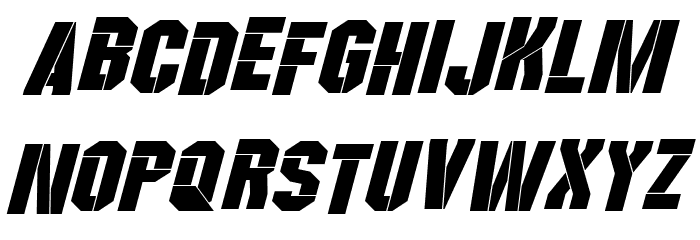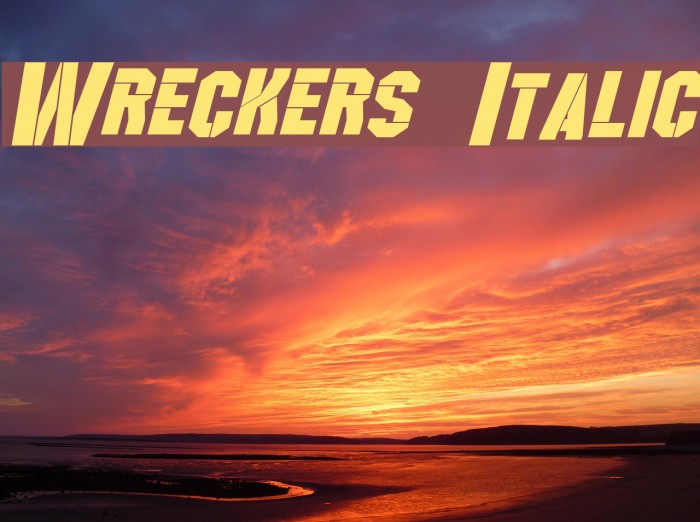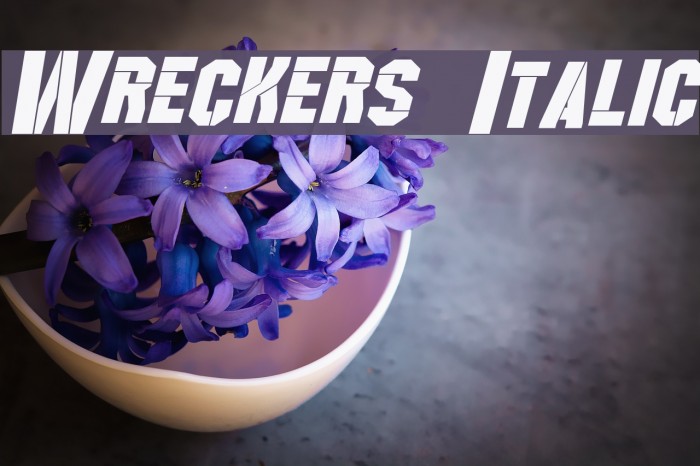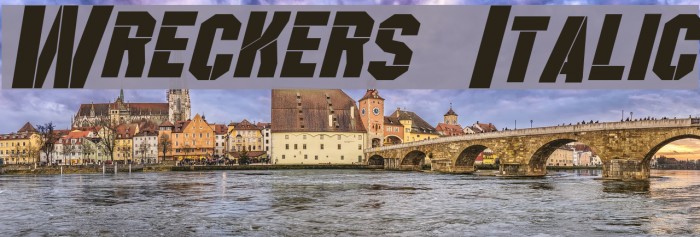
Wreckers Italic Font
This font features a bold, angular design with a distinct italic slant, giving it a dynamic and aggressive appearance. The characters are constructed with sharp, geometric shapes that convey a sense of strength and movement. The uppercase and lowercase letters maintain a consistent style, with the lowercase slightly smaller but equally bold. Numbers and special characters follow the same design principles, ensuring uniformity across all elements. The font's unique style makes it stand out, suitable for projects that require a strong visual impact.
A bold, angular italic font with a dynamic and aggressive style.
- Proposed Projects: Ideal for sports branding, action-themed posters, video game titles, and automotive advertisements.